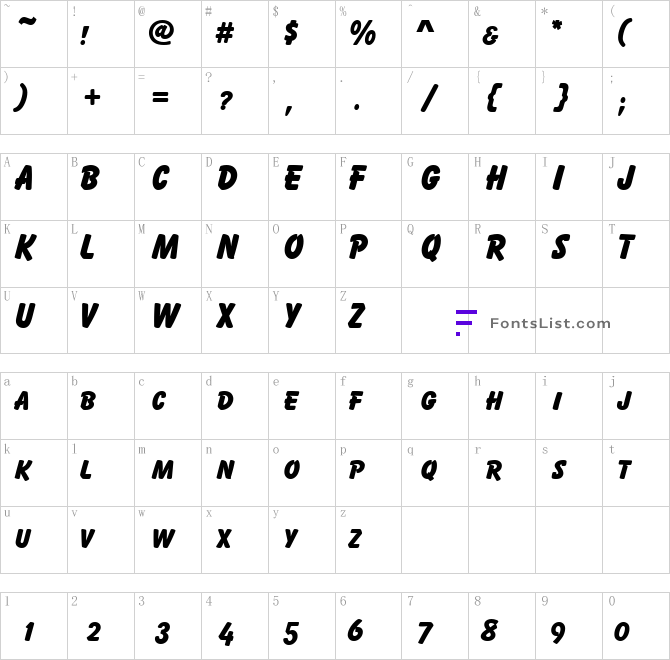
• Font Name:BalloonSCDExtBol
• Subfamily:URW:BalloonSCD-ExtrBold:1994
• Full Name:BalloonSCDExtBol
• Version:Version 001.005
• PostScript:BalloonSCD-ExtrBold
• Copyright:URW Software, Copyright 1994 by URW
BalloonSCDExtBol.ttf is a very beautiful artistic font, BalloonSCDExtBol.ttf is widely used in the design and printing of various books and pictures,BalloonSCDExtBol.ttf has a strong visual impact,BalloonSCDExtBol.ttf is a commonly used font in newspapers, magazines and books, and is used in posters, e-commerce Poster design, store design, logo design, font design and other fields.BalloonSCDExtBol.